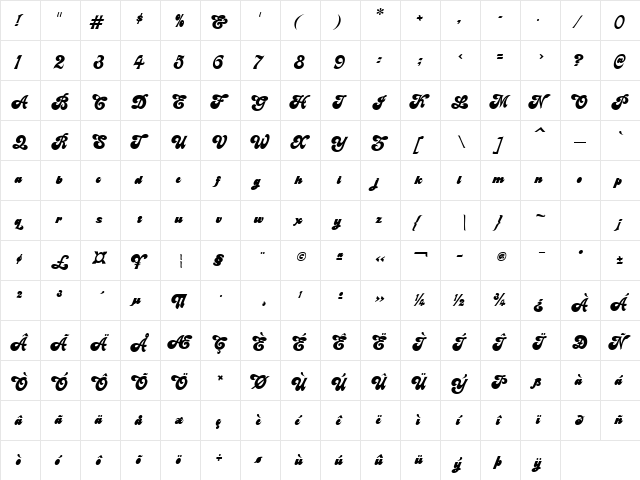
BenguaitCharisma Script
Design Context for BenguaitCharisma Typeface
BenguaitCharisma brings a calligraphic fluidity to the page — its connecting strokes and expressive curves give it an unmistakably human quality.
Font Pairing: Combine BenguaitCharisma with a simple geometric sans for maximum contrast — the tension between flowing curves and clean structure is a classic typographic pairing.
Pro Tip: Use BenguaitCharisma for short runs of text — names, titles, or taglines. Extended body copy in script faces tires the eye quickly.